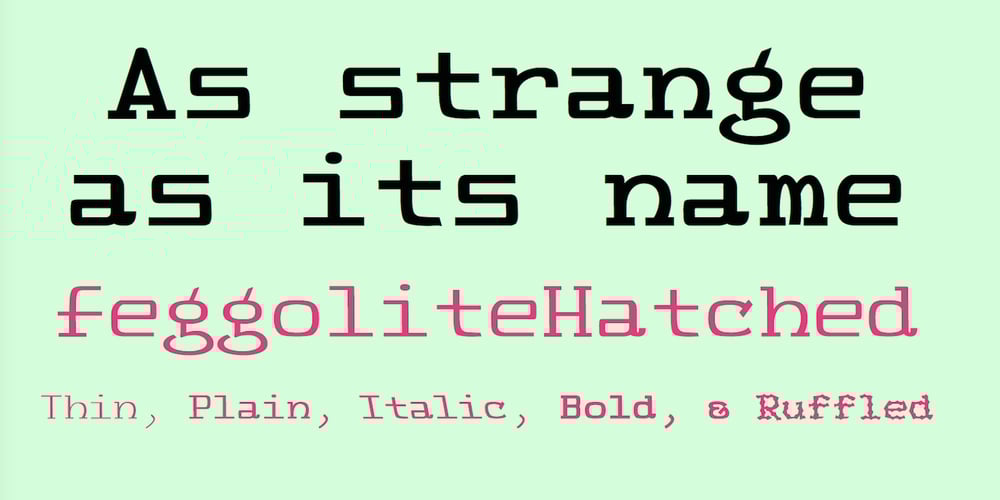
FeggoliteHatched Font Family was designed by Robert Schenk and published by Ingrimayne Type. FeggoliteHatched contains 5 styles and family package options. The name FeggoliteHatched comes from the fact that it was created with the help of an old font manipulation program called Incubator Pro. It was an attempt to create a more conventional typeface from the odd monospaced font, FeggoliteMono. As a monospaced font, FeggoliteHatched could be considered a typewriter face, but no typewriter ever produced letters like these. The original version from 1994 is now the italic style and it has a leftward or back slant. The upright or plain version was added much later, in 2018. There is also a choppy upright version included in this family.